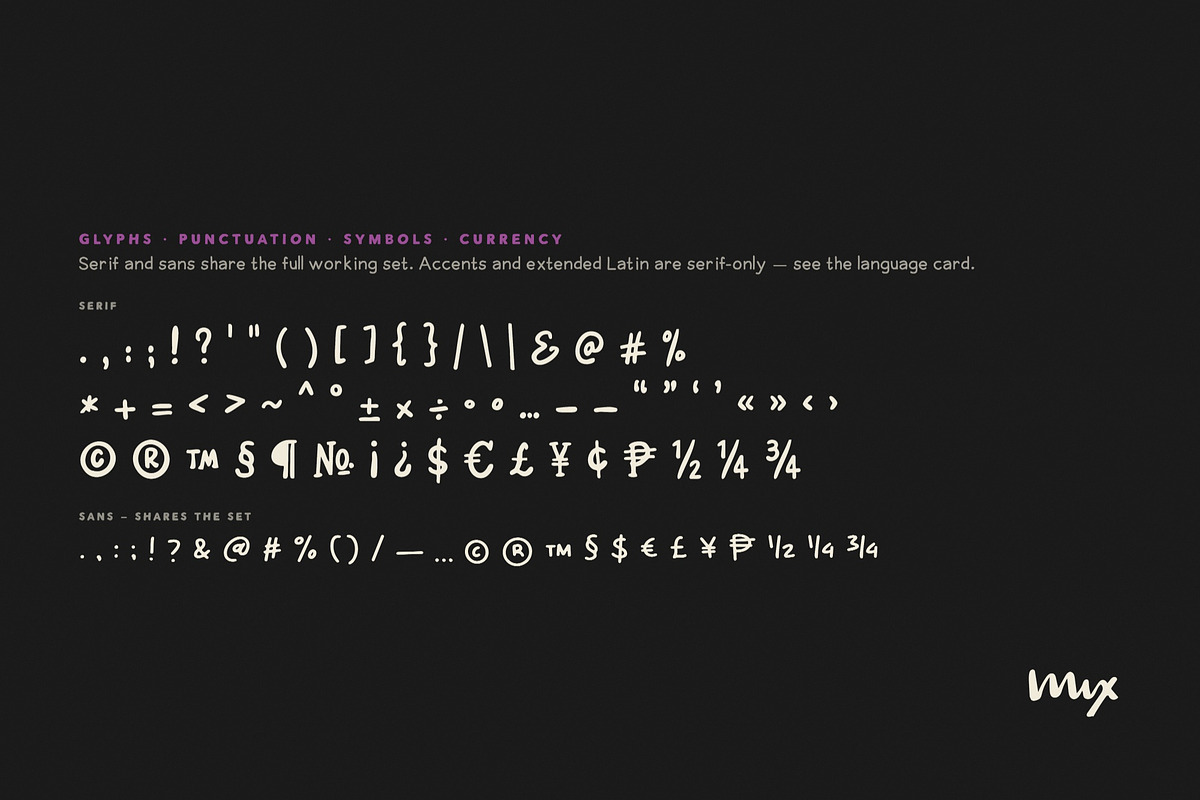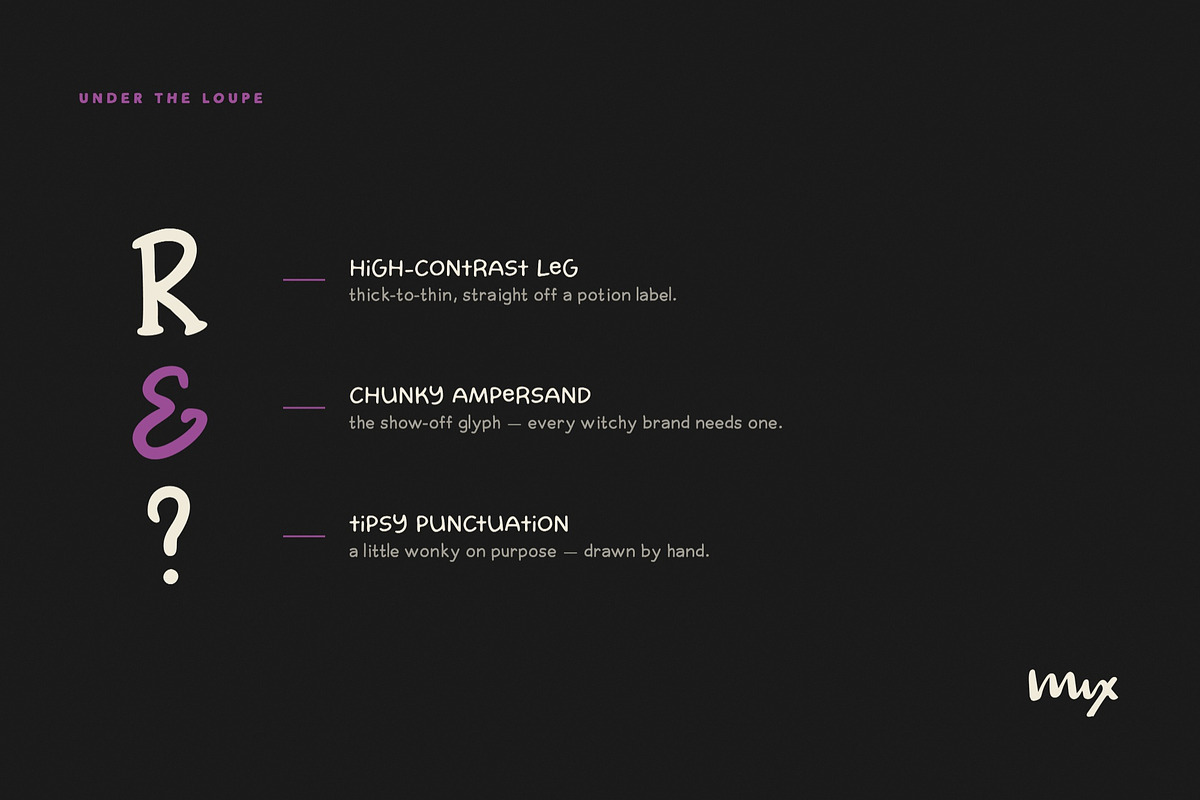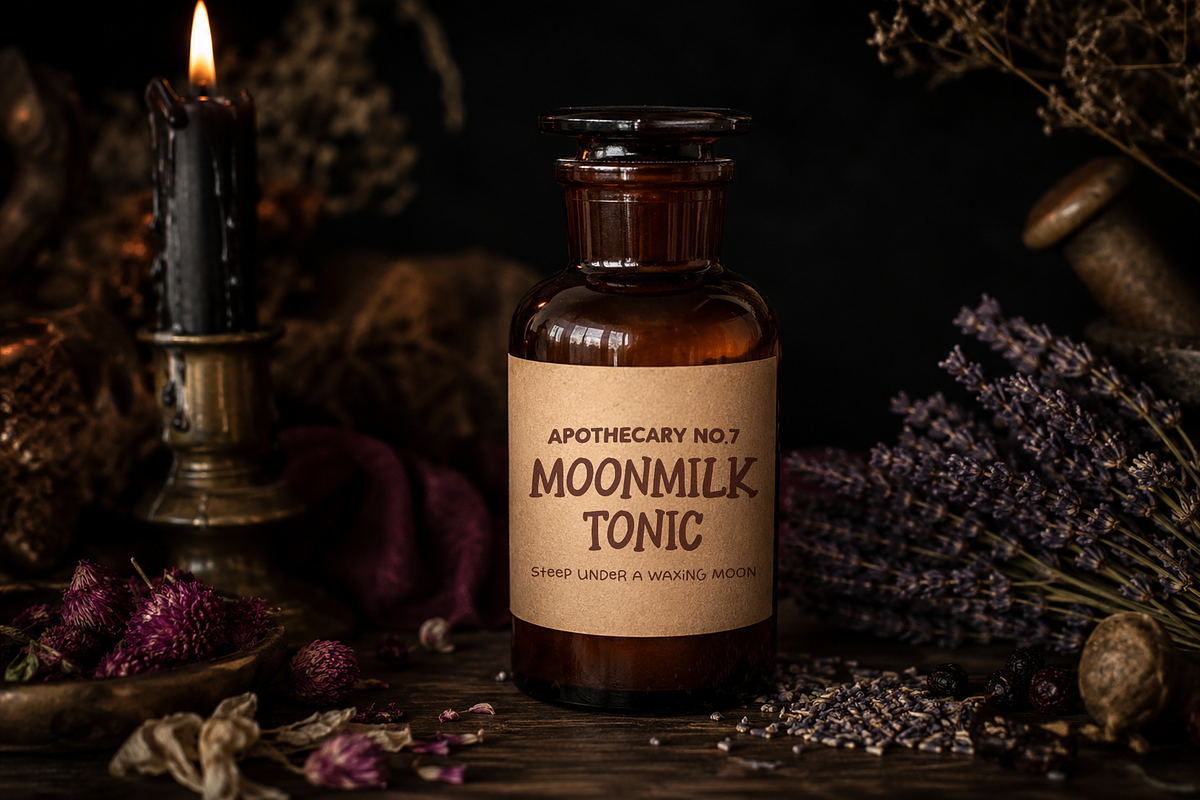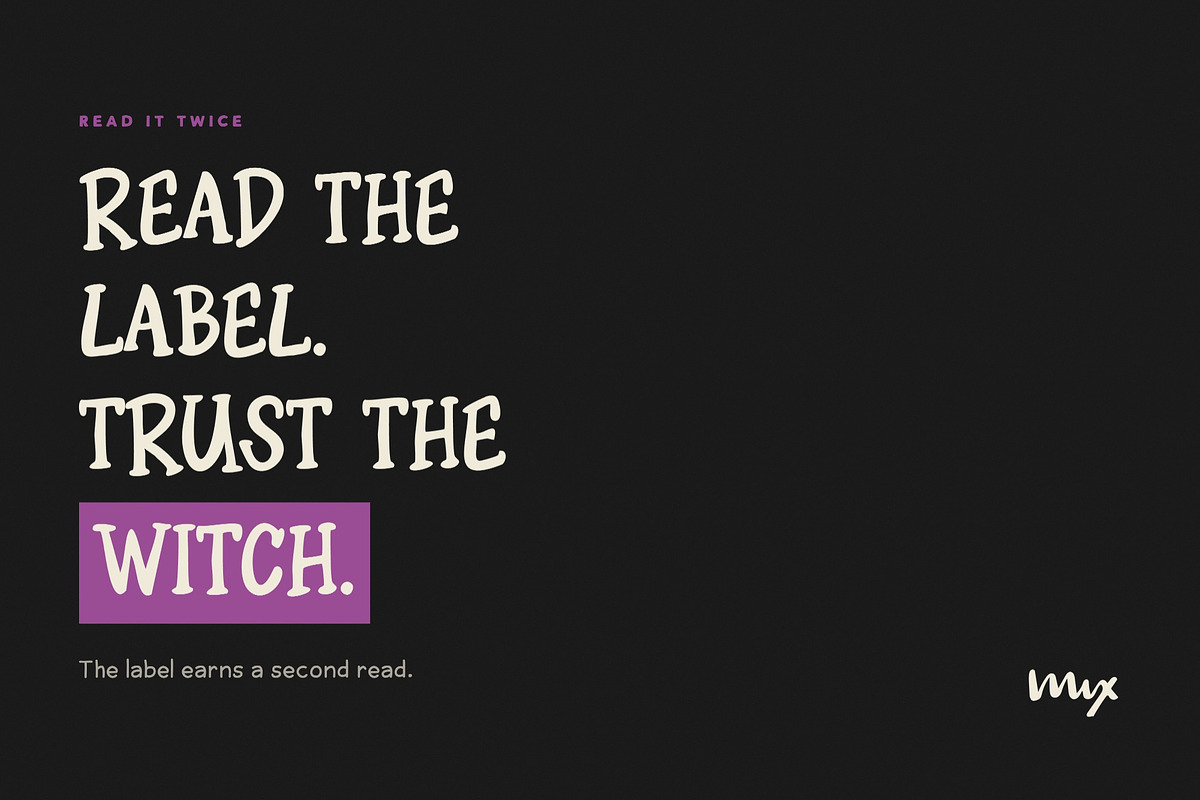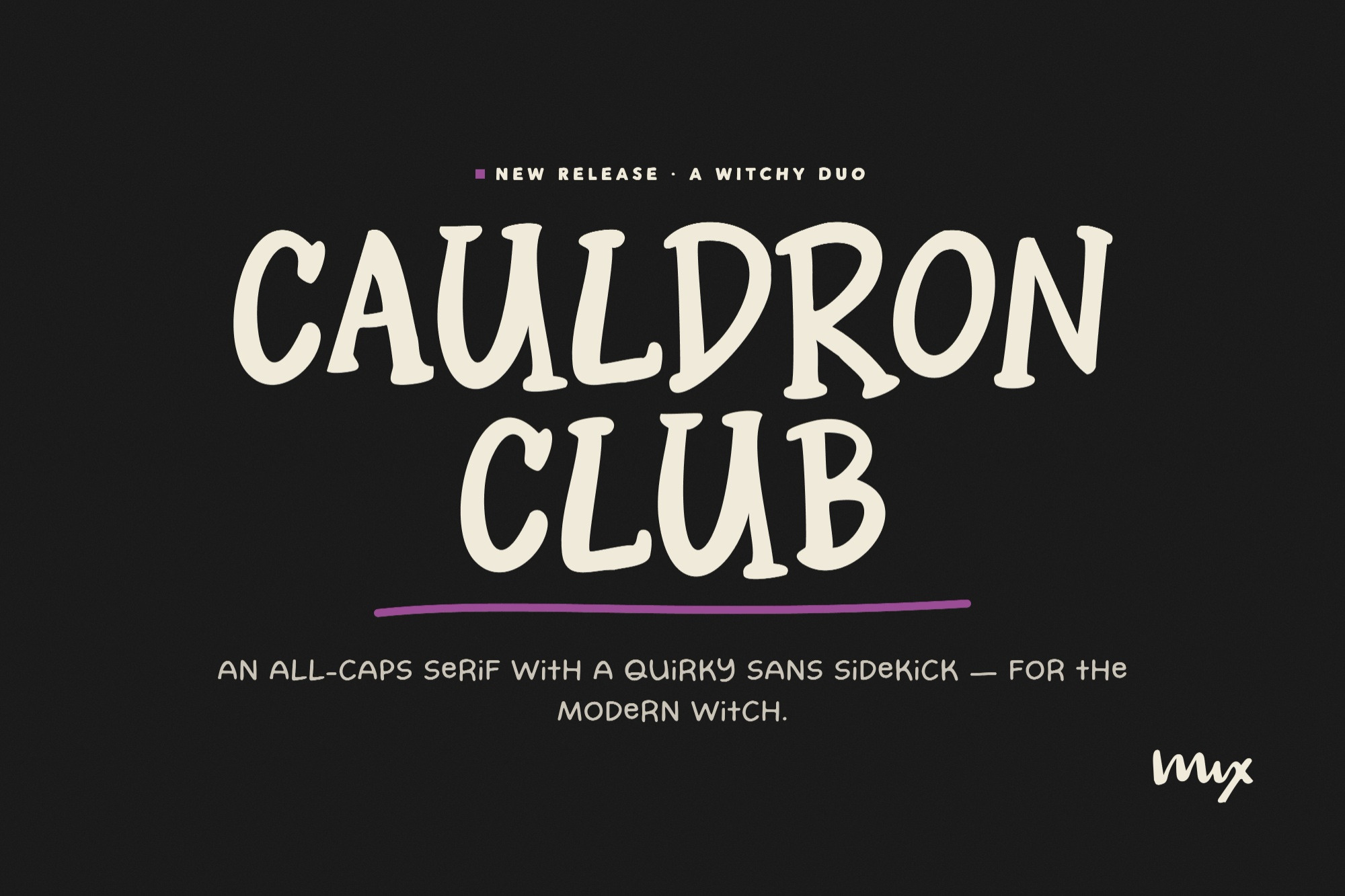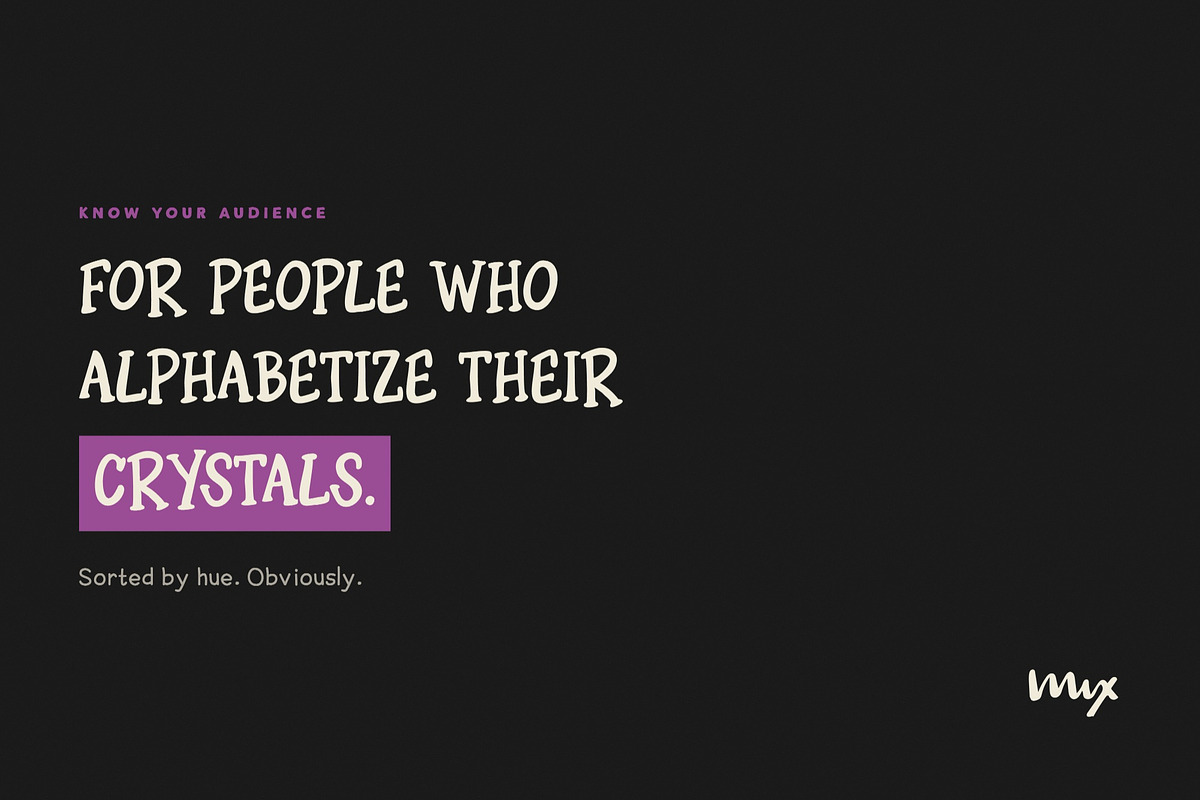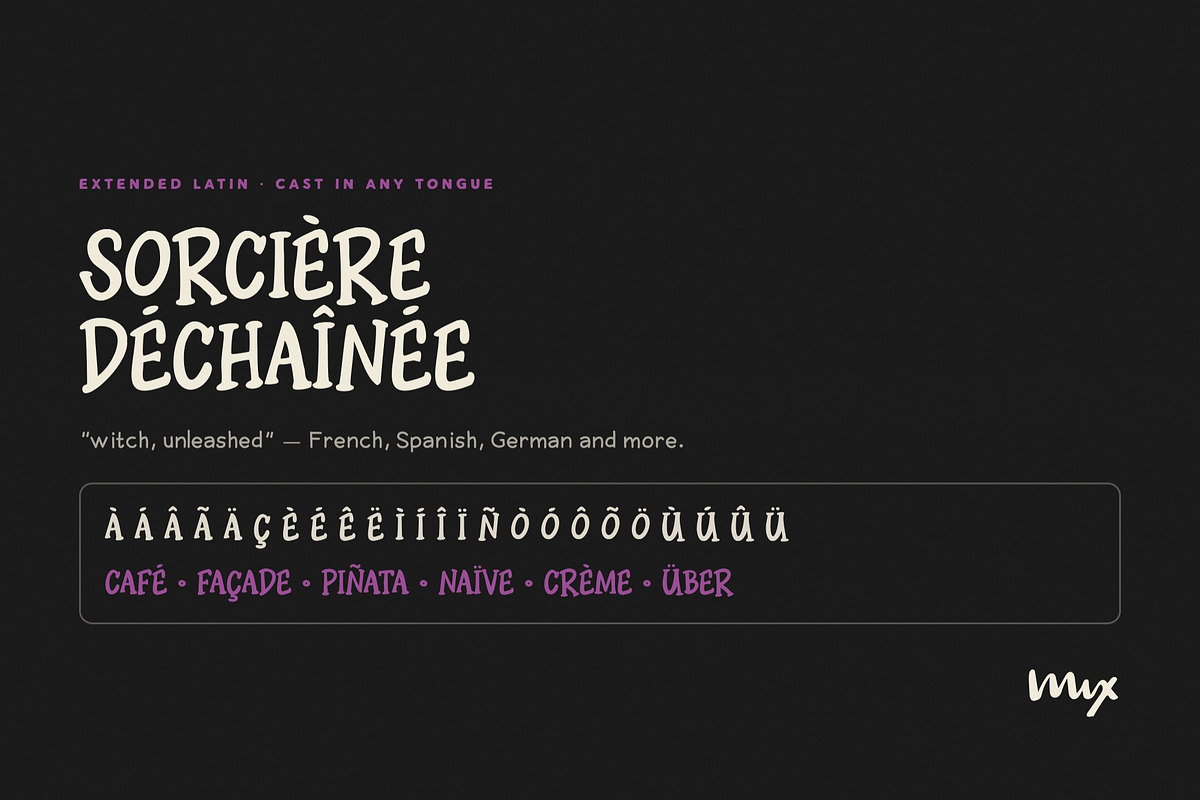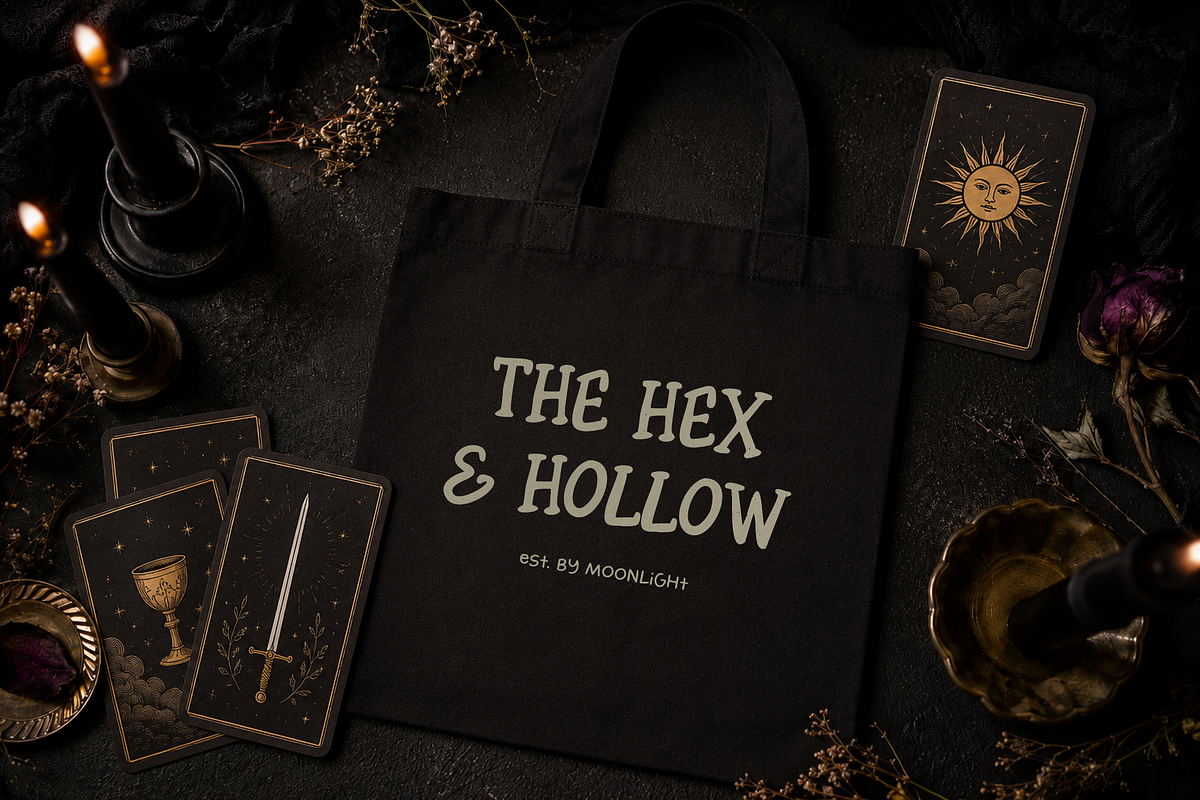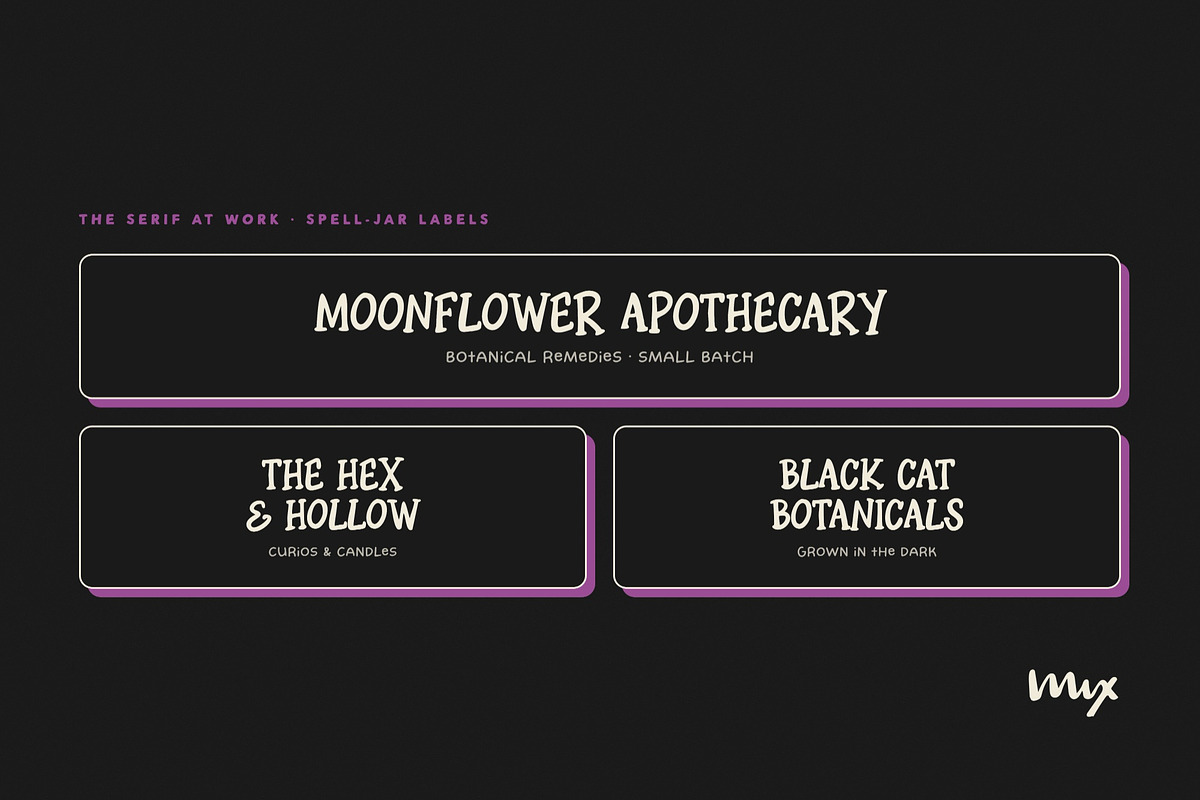
Cauldron Club - A Witchy Font Duo
Meet Mix Cauldron Club, a charming all-caps serif with a dash of spooky-cute energy and a quirky sans sidekick.
Brewed for the modern witchy designer, Mix Cauldron Club mixes vintage potion-label charm with crisp all-caps clarity. It's the font you'd use to label spell jars and your planner. It walks the line between eerie and elegant, made for Halloween invites, witchy quotes, cozy journals, and magical merch.
Need something a little weirder, softer, or sassier? The included quirky sans gives you a handwritten sidekick for pairing headlines and subtext without leaving the theme.
\- Mix Cauldron Club Serif
\- Mix Cauldron Club Sans
\- Punctuation, numbers, and extended Latin with multilingual support
\- Clean, crisp outlines made for print or digital
Ideal for:
\- Witchy small biz branding
\- Spellbook-inspired journals
\- Seasonal packaging, spooky season or not
\- Digital downloads, quotes, or labels
\- Cute content creators passing the Halloween vibe check
Whether you're crafting a digital coven kit, designing printable planner pages, or branding your witchy side hustle, Mix Cauldron Club brings all the character without